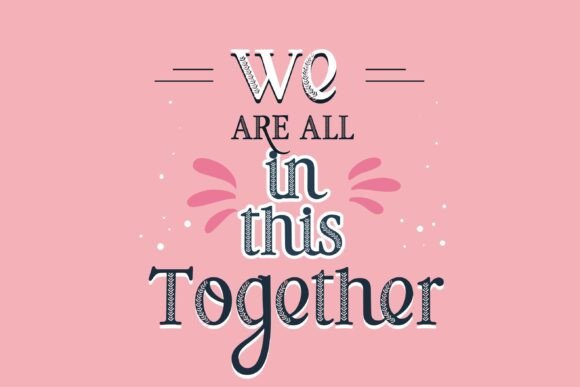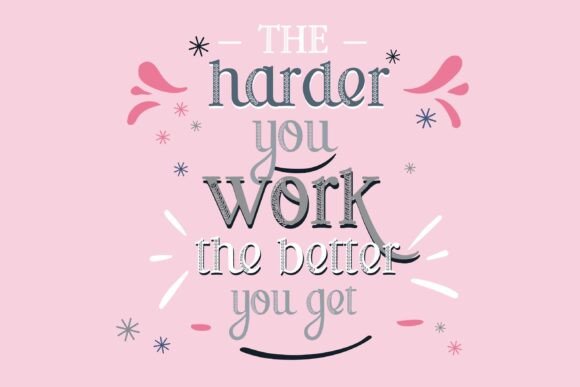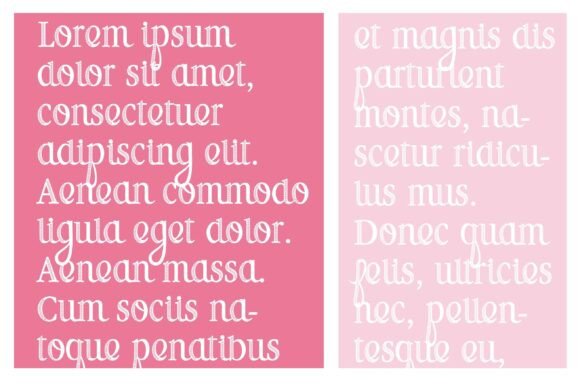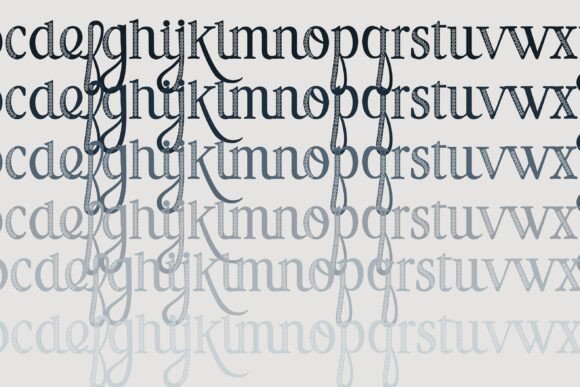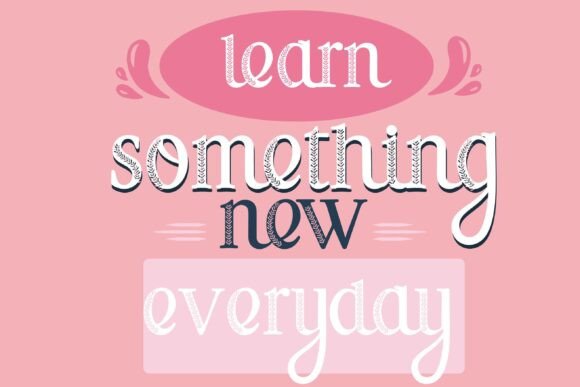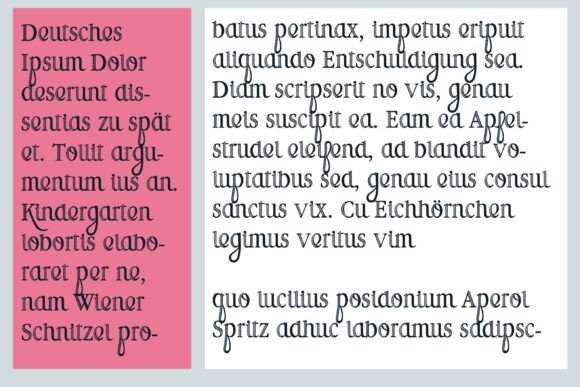
Introduction to King Kringle Font
This hand-crafted font is a flourished serif font with holiday trim.
3D version included A hand-crafted font is a font that is designed to look like it was written by hand.